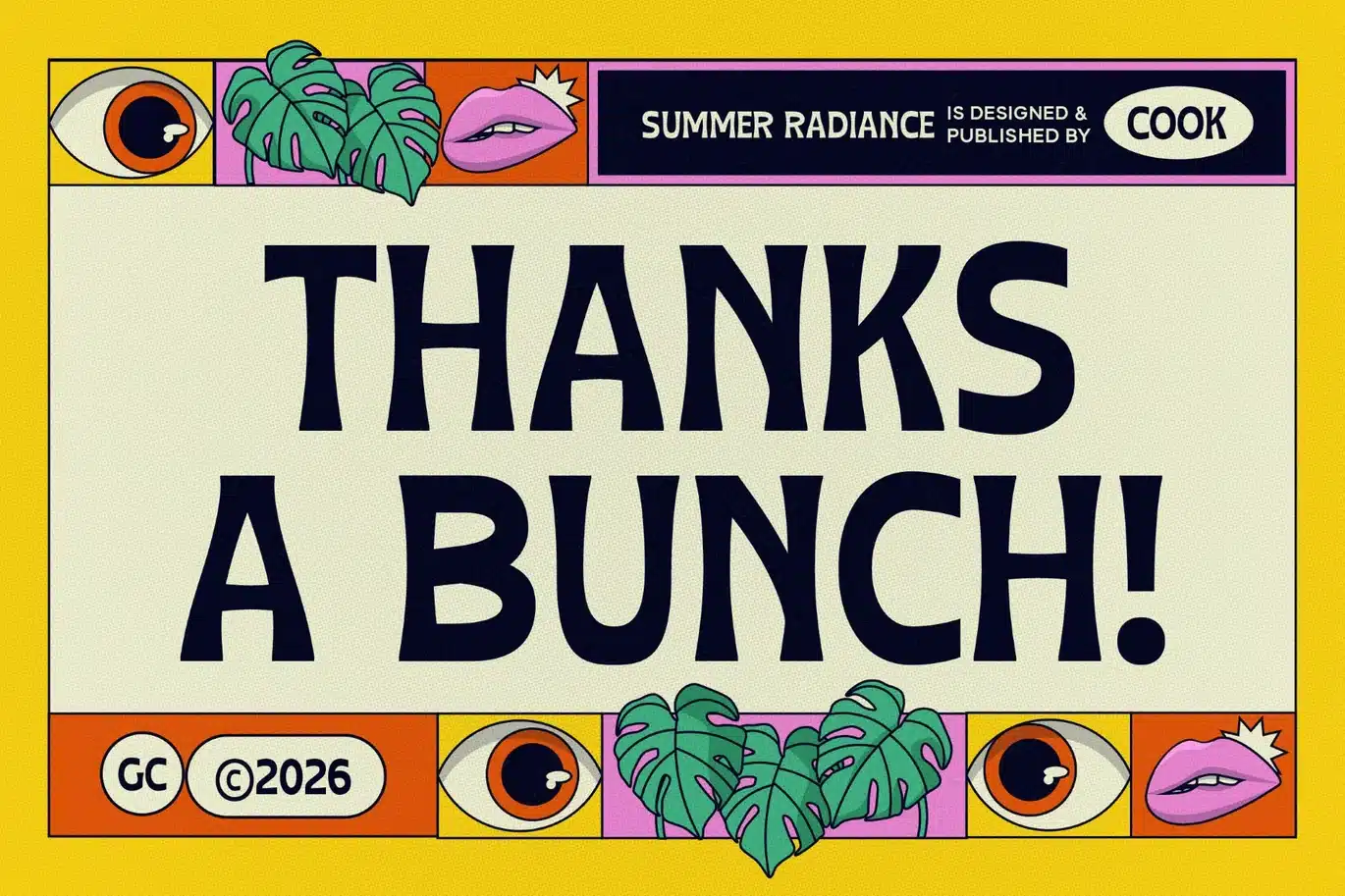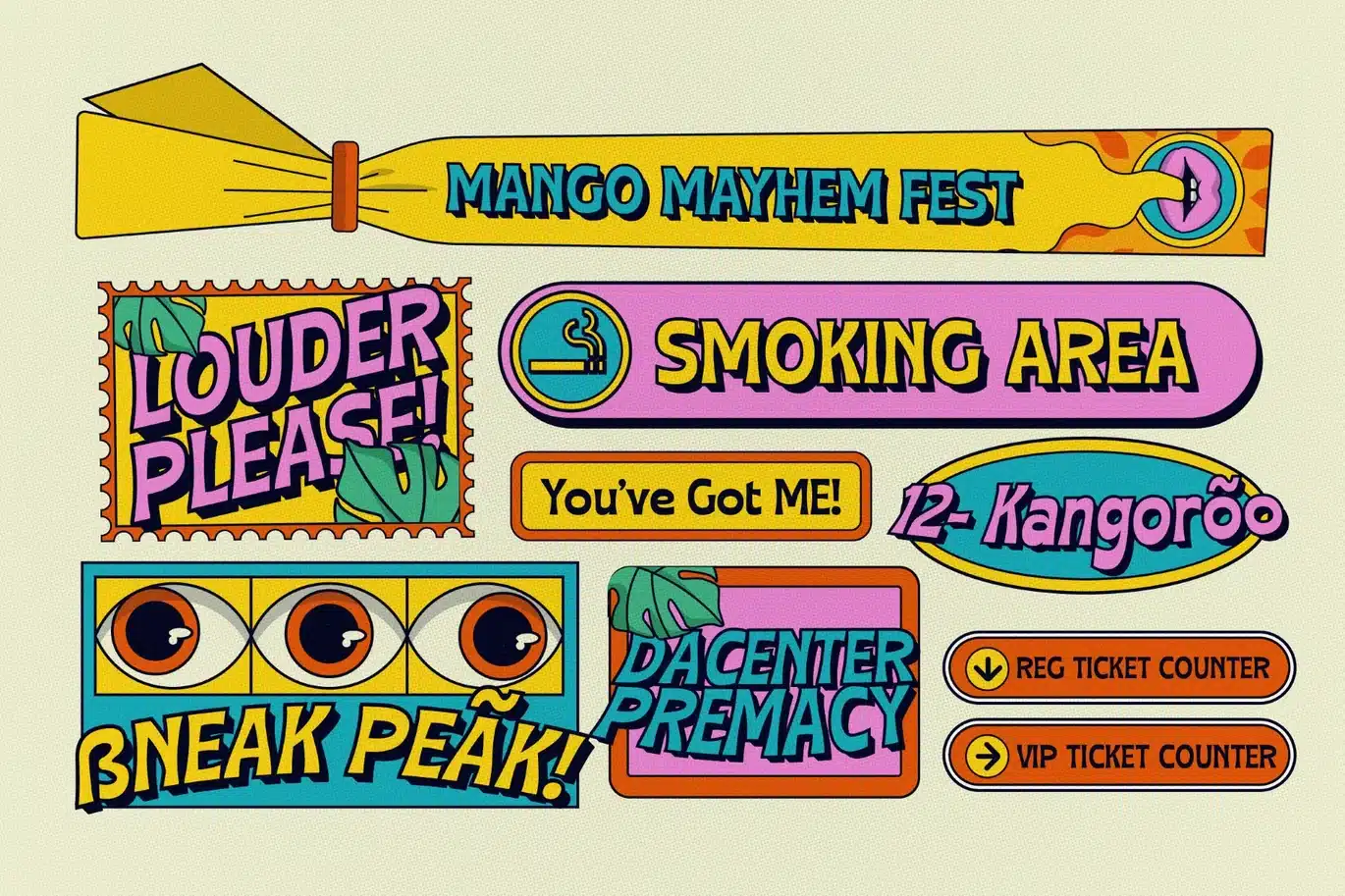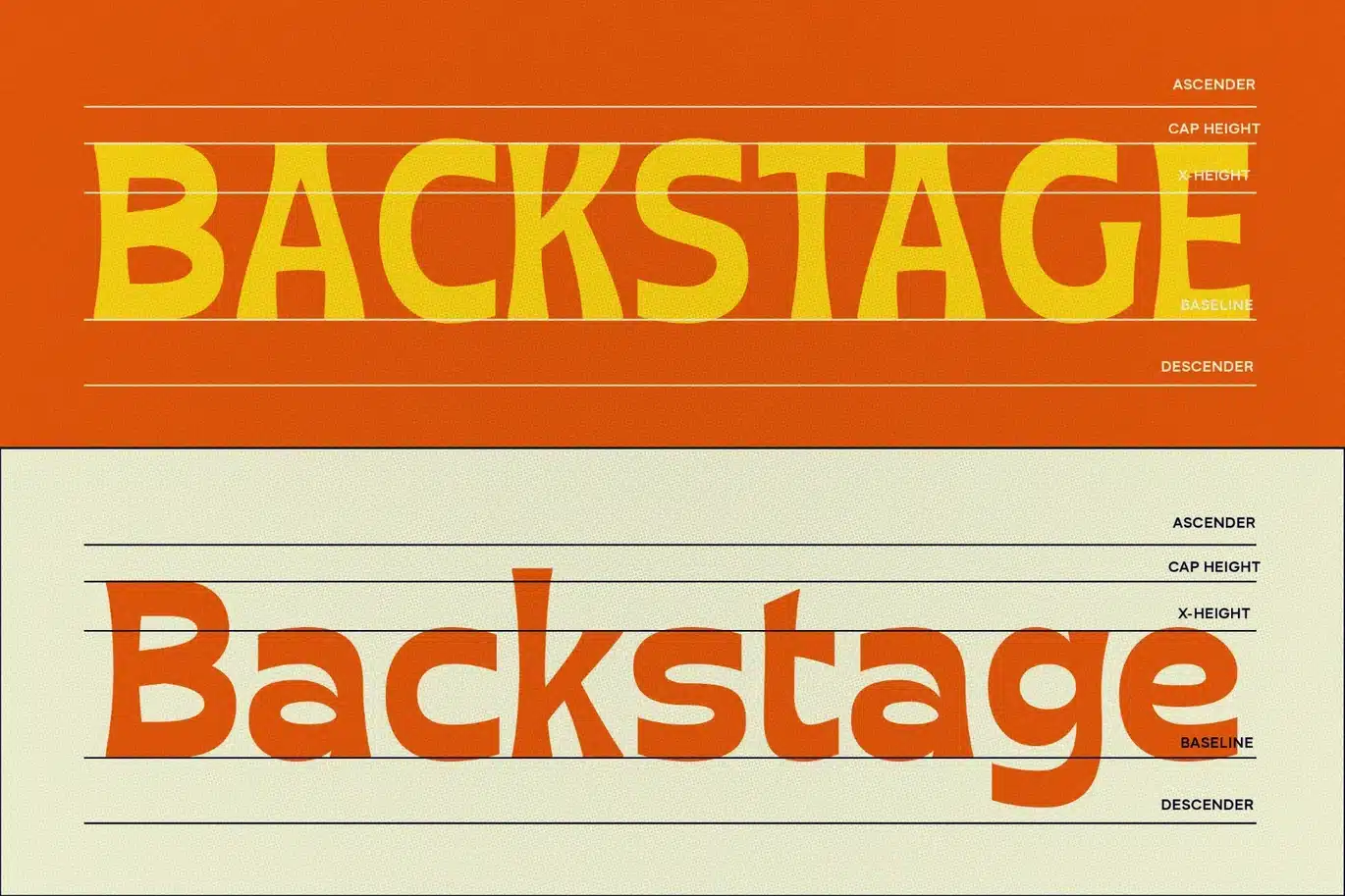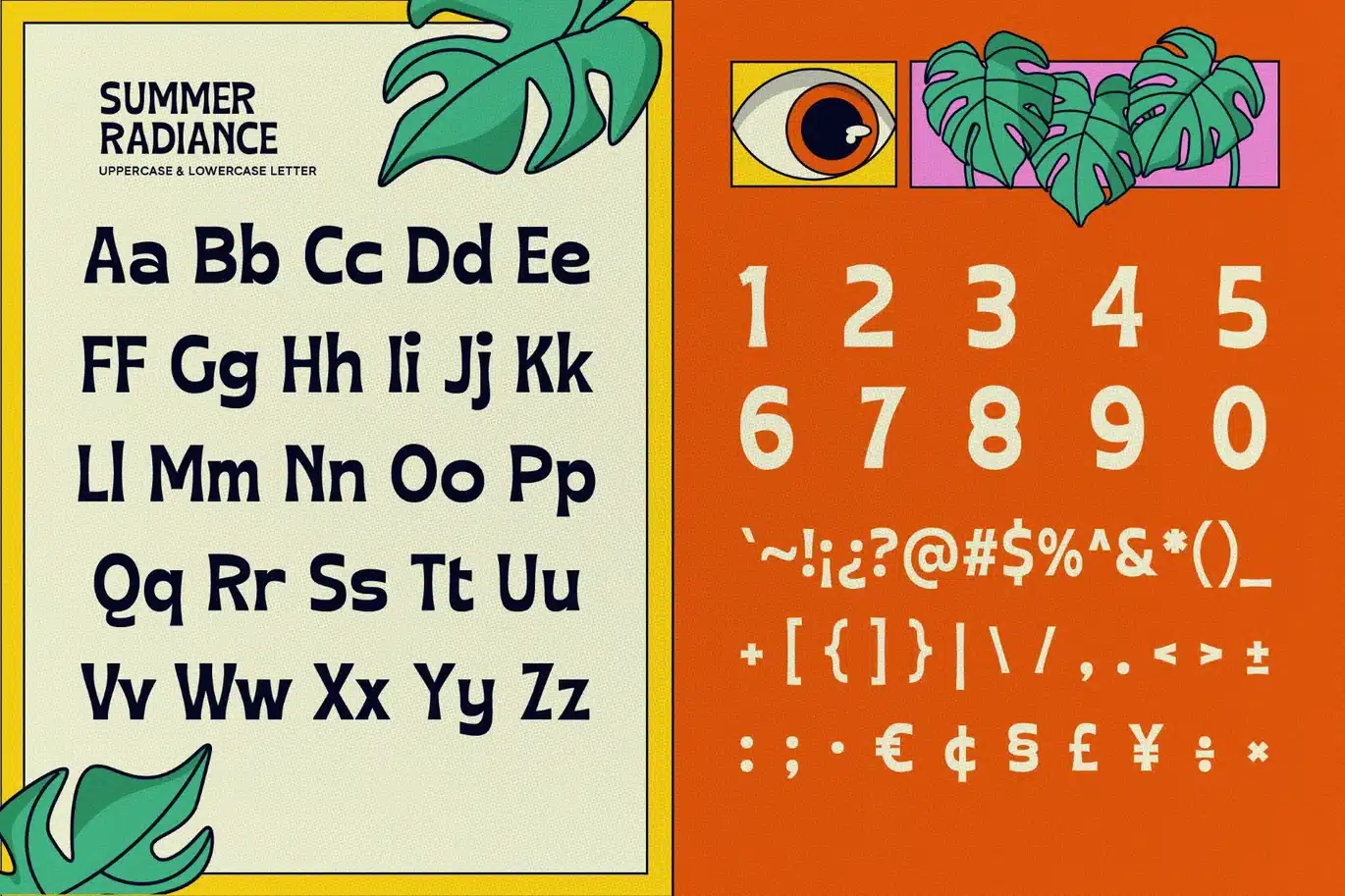
Summer Radiance Font
Summer Radiance is a bold display font inspired by the vibrant energy of summer and retro graphic styles. Its strong letterforms and playful character make it perfect for creating lively, eye-catching headlines. Designed to stand out, Summer Radiance works beautifully for posters, branding, packaging, and social media graphics. Perfect for summer themes design, lifestyle branding, and creative projects that need a bright and cheerful personality.
It is perfect for headlines, logotypes, magazines, packaging, quotes, movies, games, cover albums, book covers, and flyers, it's a perfect solution for creating eye-catching designs that stand out in any context.